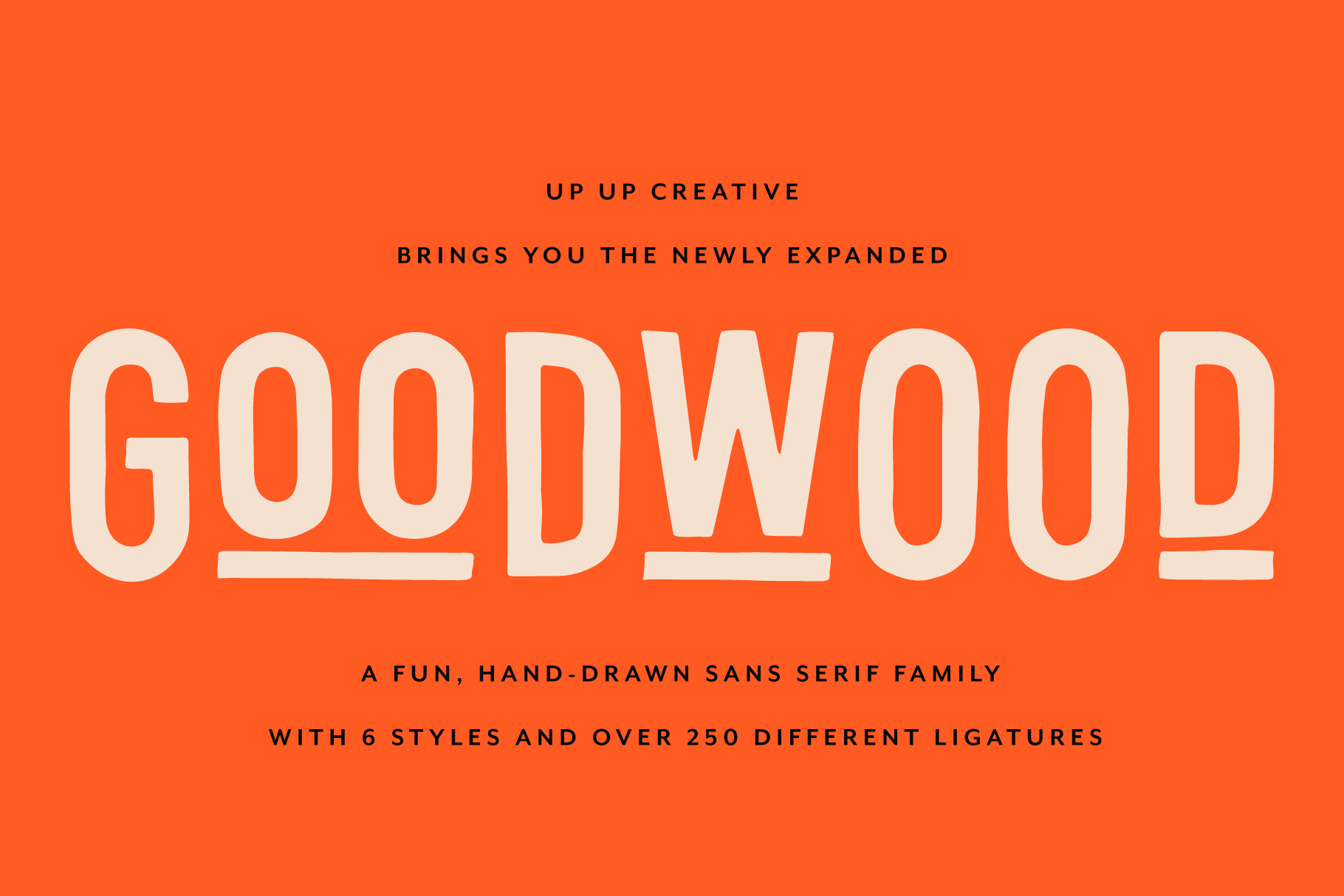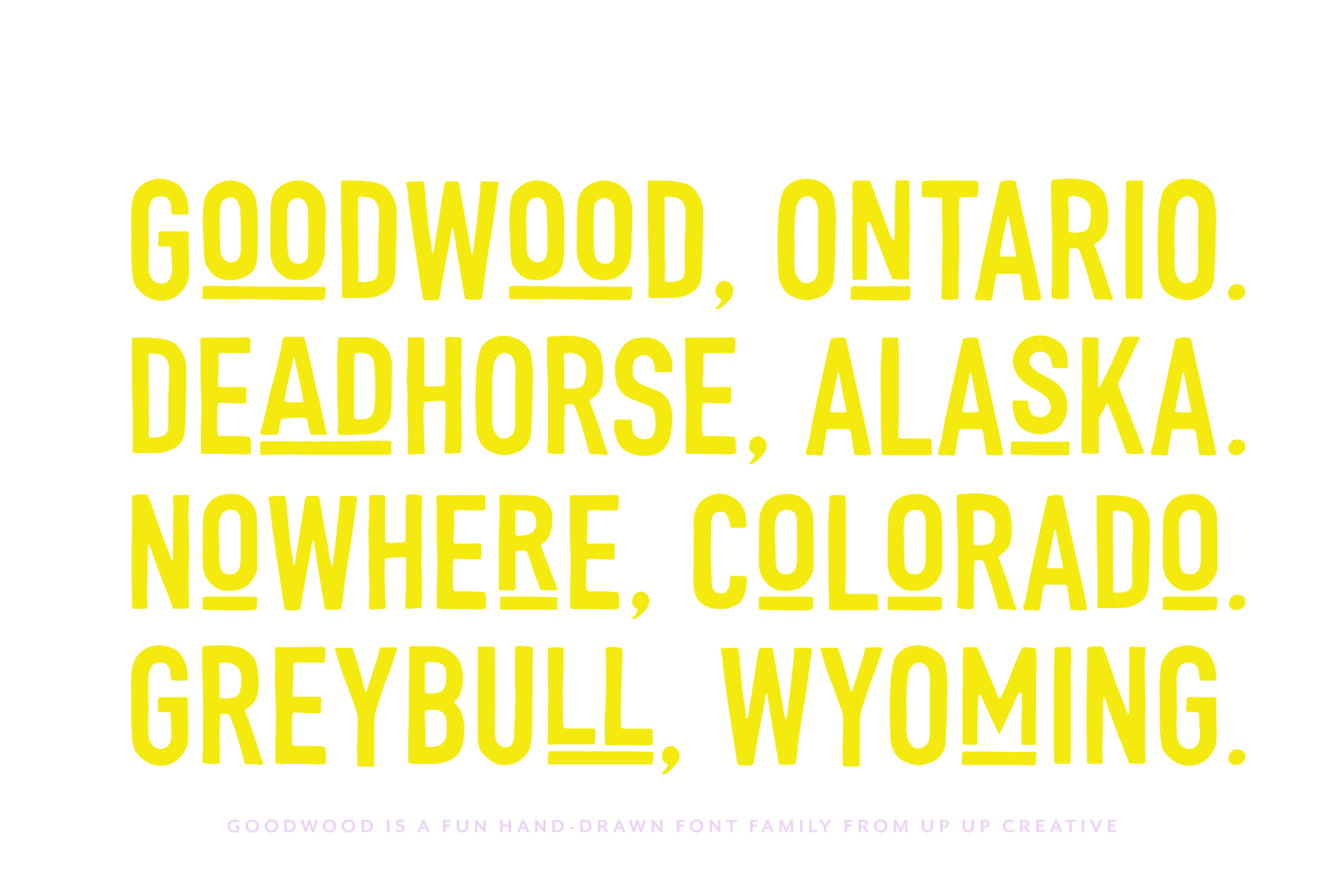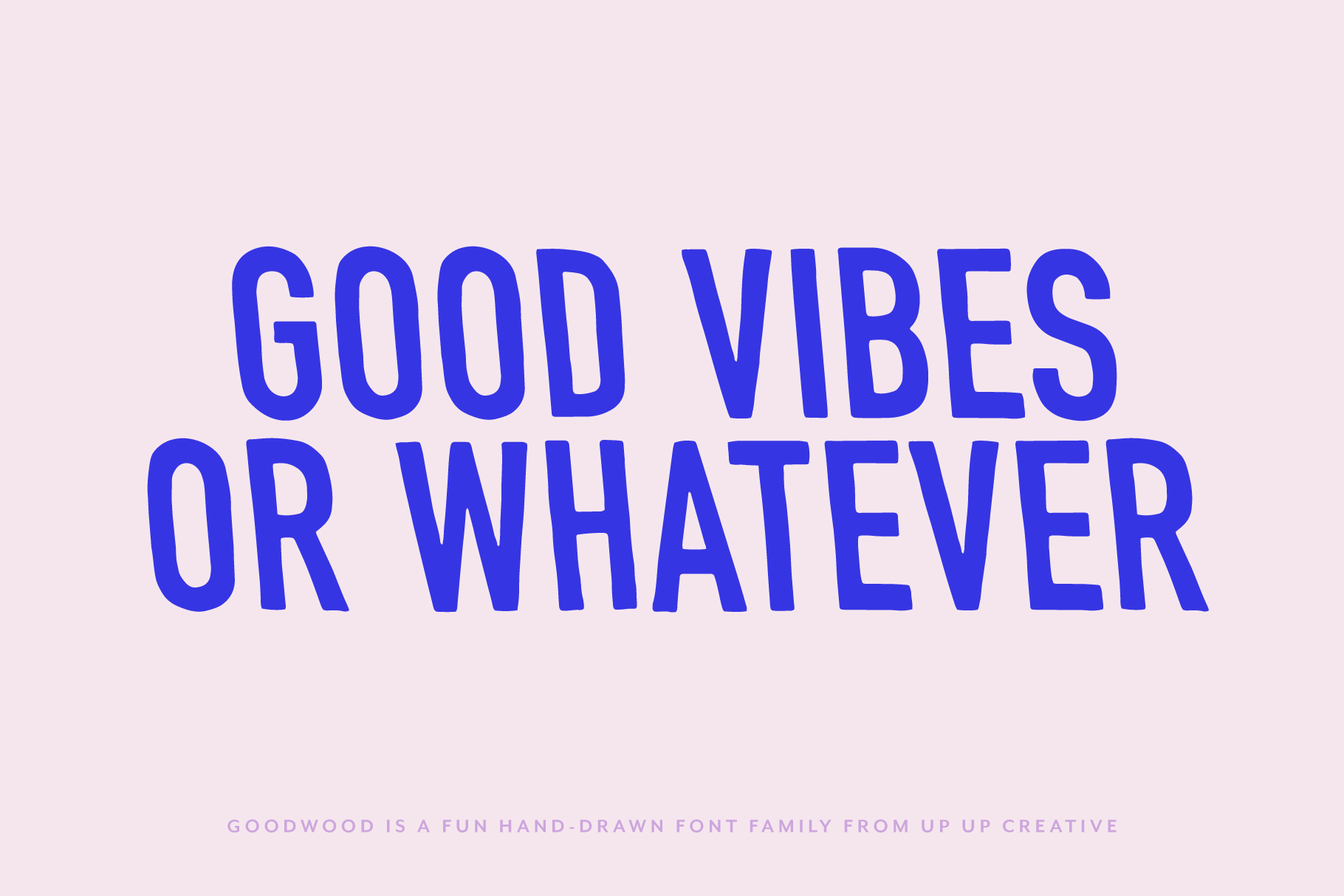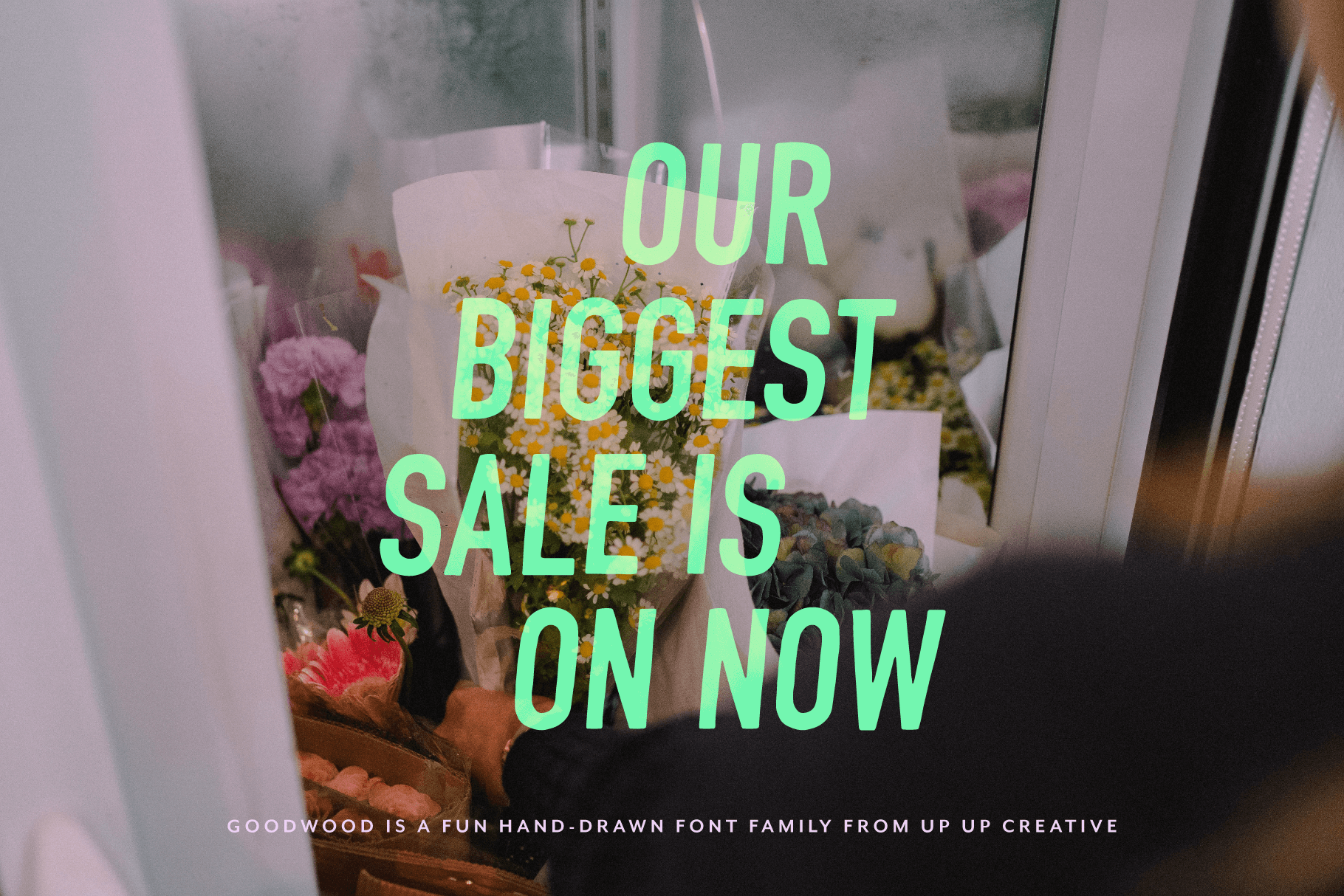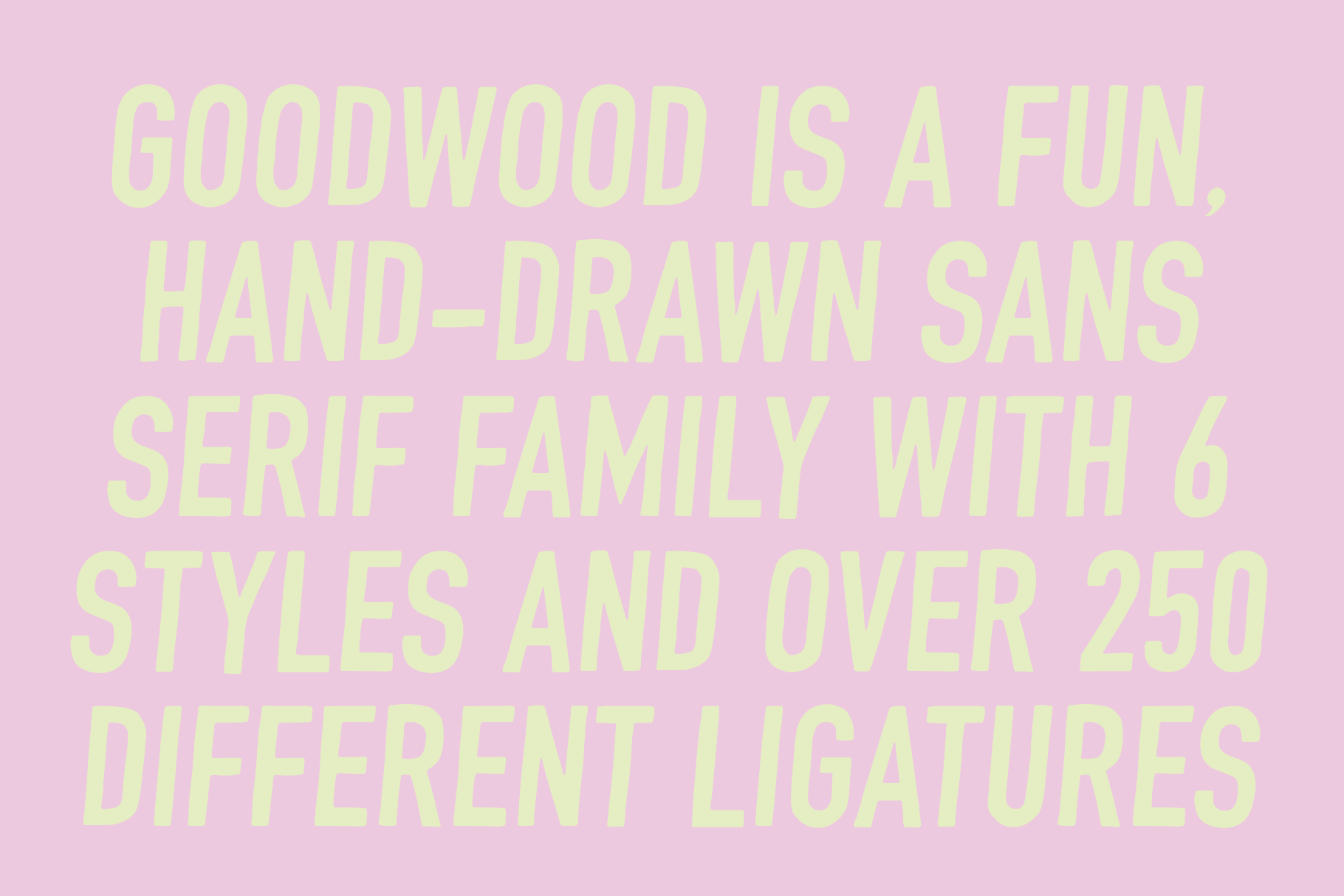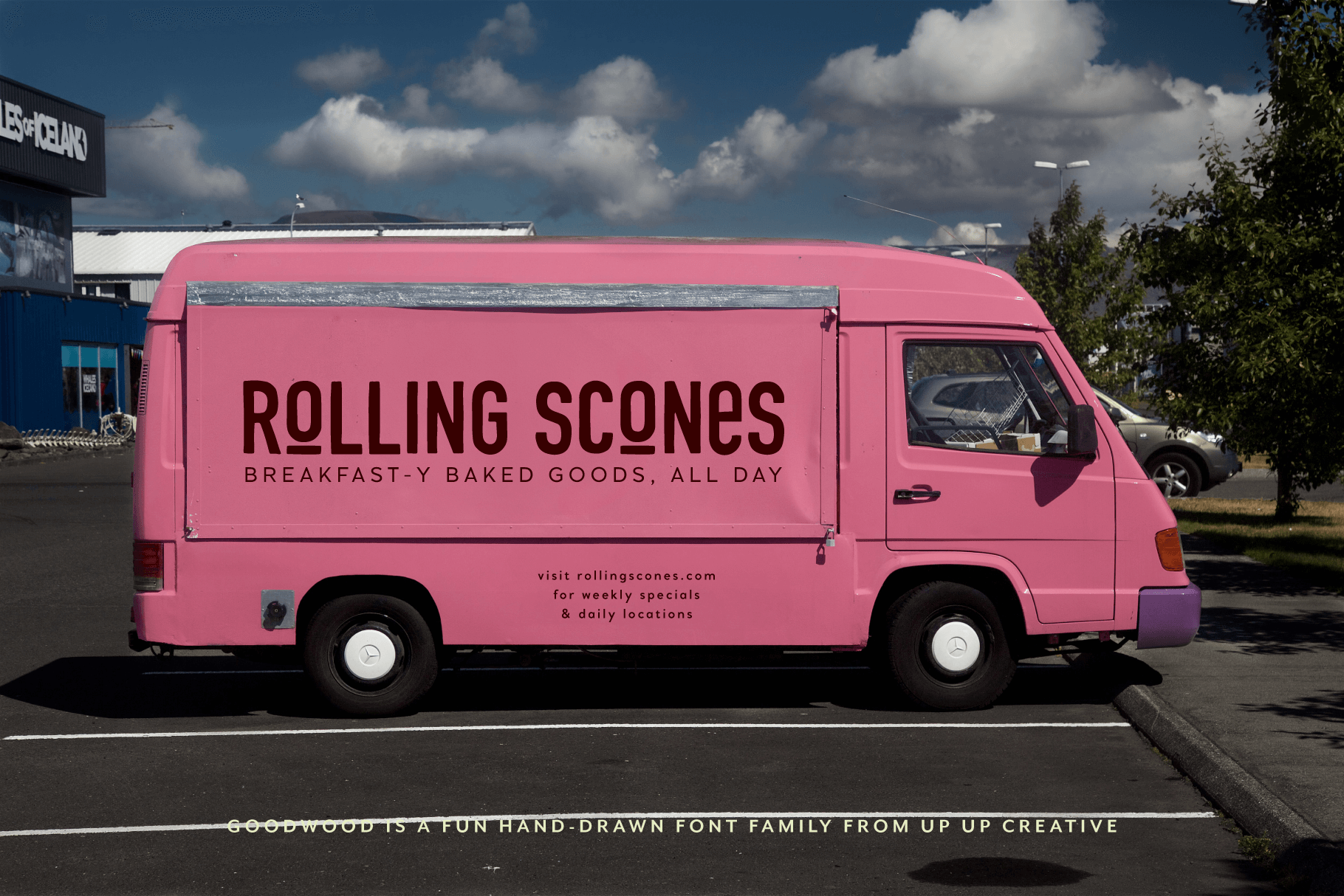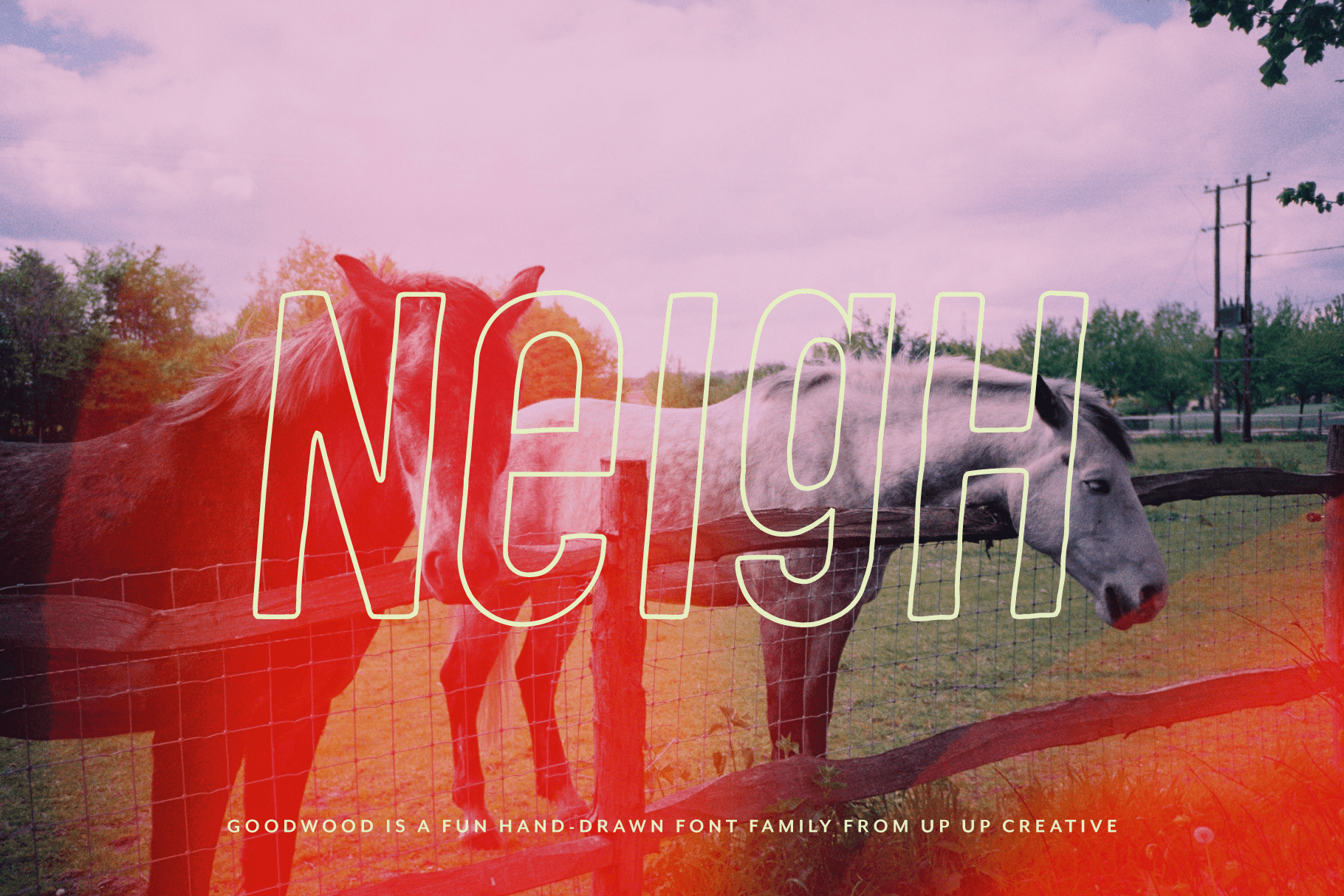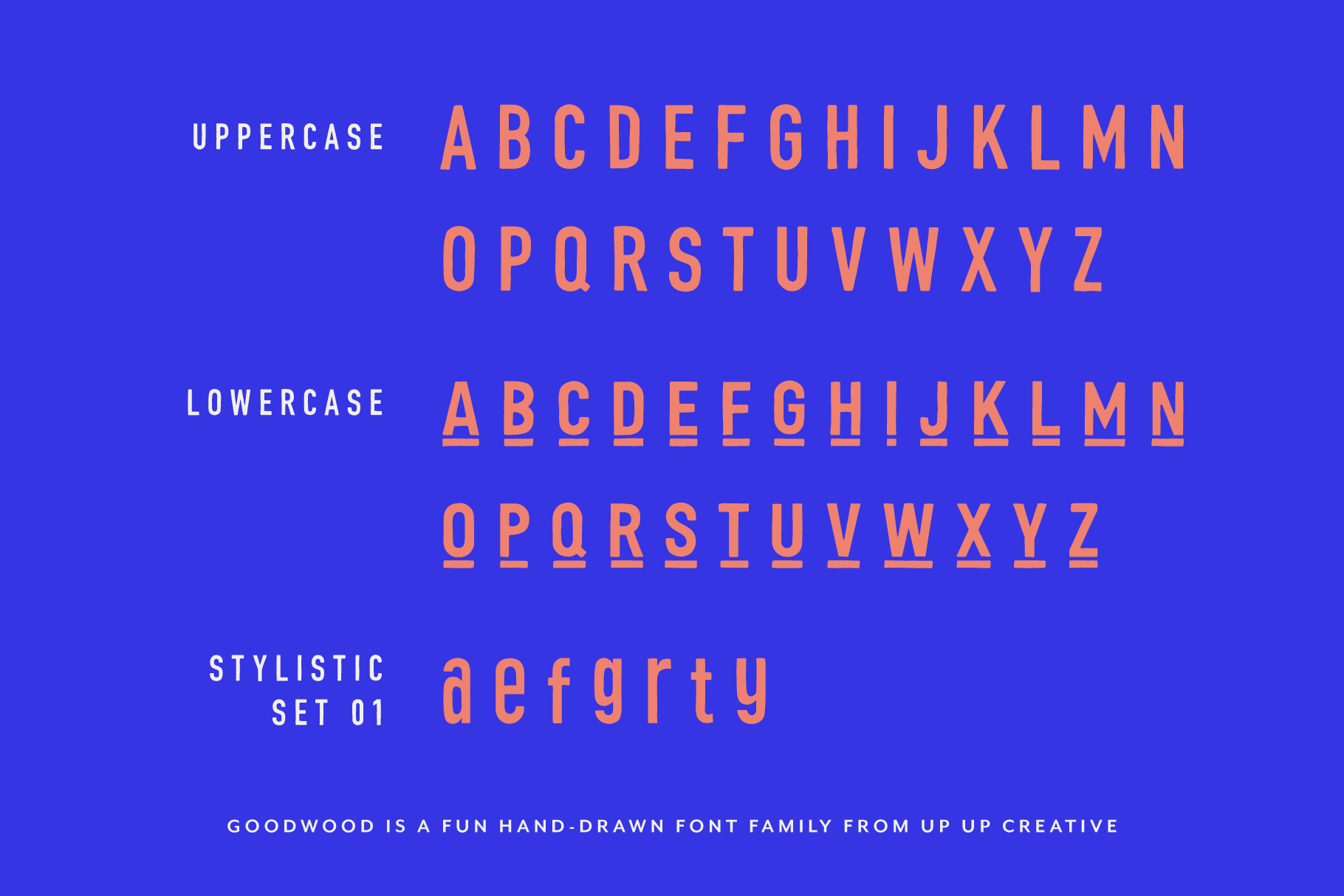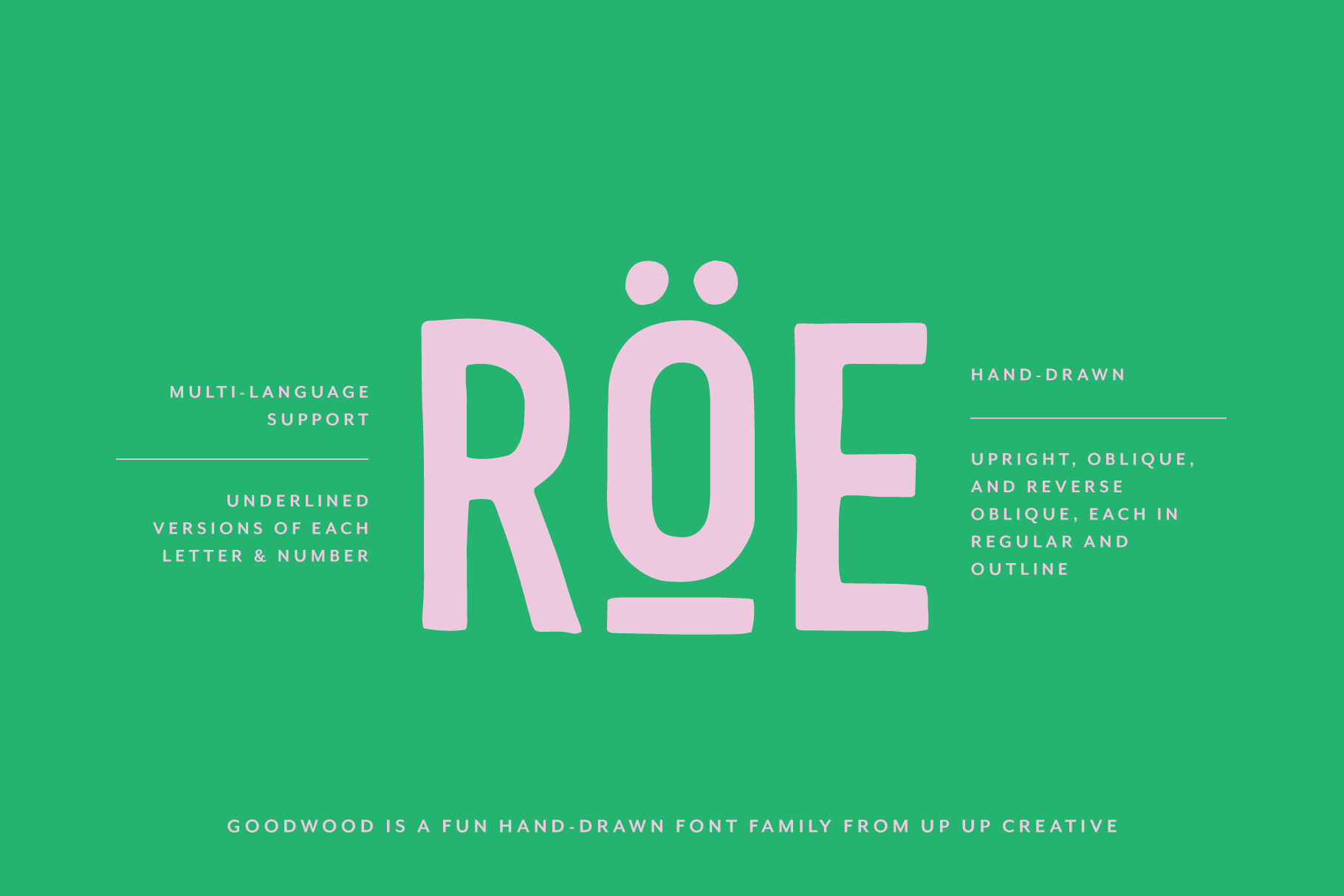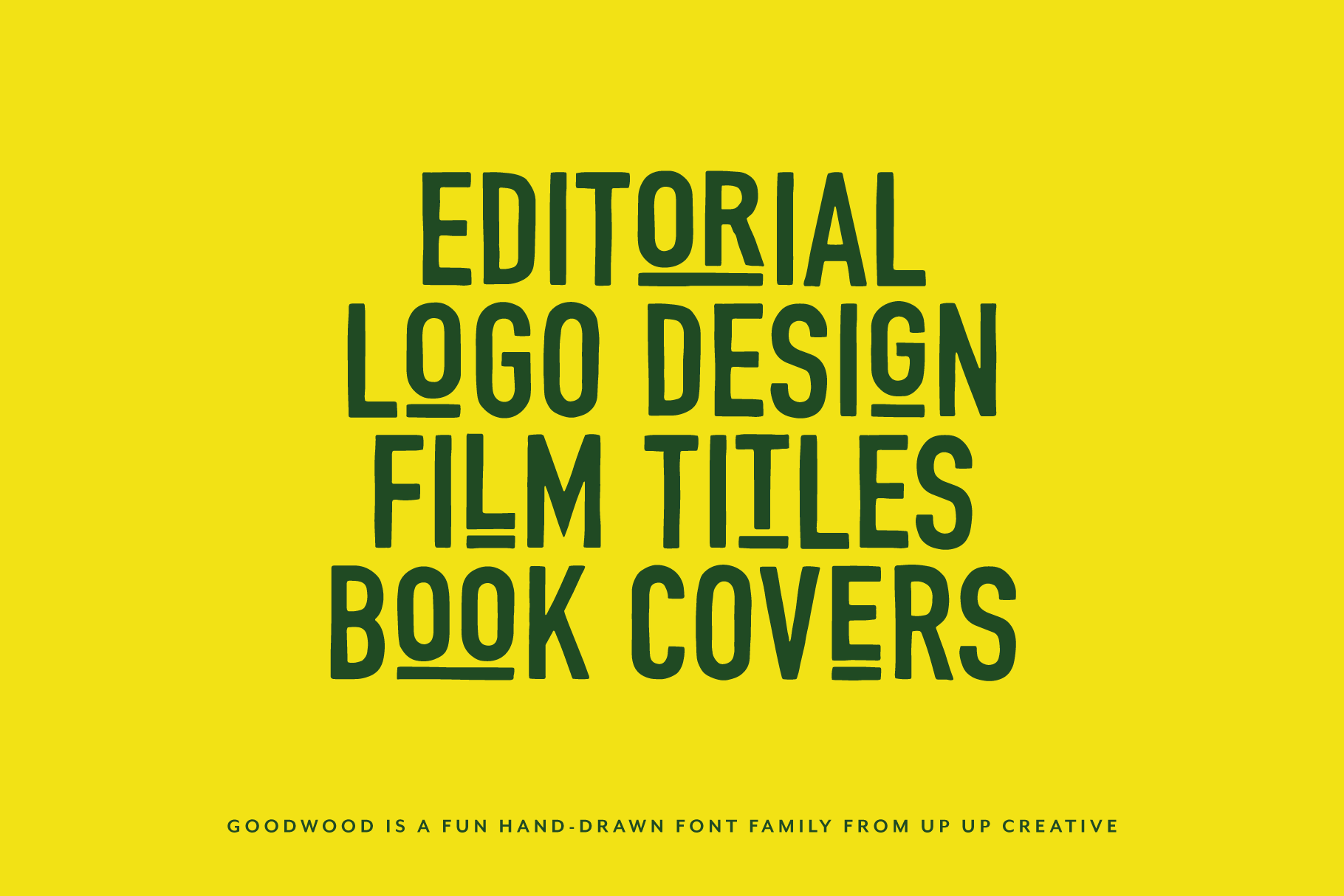
Goodwood Sans Serif Font Family
Say hello (again) to Goodwood. What started as a one-style freebie is now a bold, expressive 6-style font family built for impact. Still hand-drawn and joyfully imperfect, Goodwood has leveled up with upright, oblique, and reverse oblique styles—plus outline versions of each.
Whether you're working on a headline, logo, or anything that needs personality with a wink, Goodwood’s got the charm and the chops. It’s fun. It’s flexible. It’s full of attitude.
Goodwood includes the following OpenType features:
- discretionary ligatures
- localized forms (multi-language and multi-currency support)
- fractions, ordinals, subscripts, and superscripts
- stylistic sets
Includes 502 ligatures
- Includes 937 glyphs
- 3 Versions (Upright, Oblique, and Reverse Oblique), each in Regular and Outline